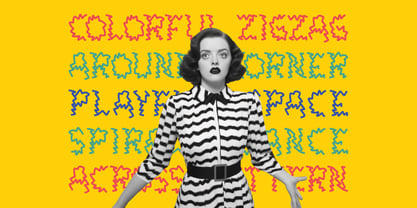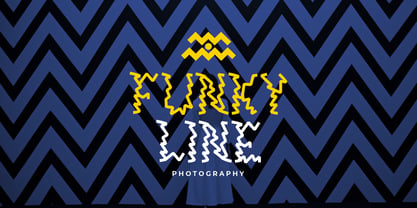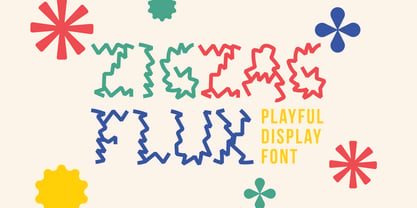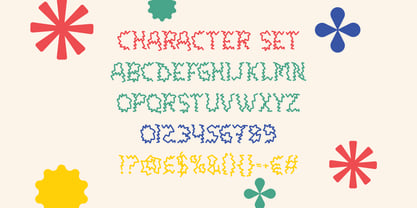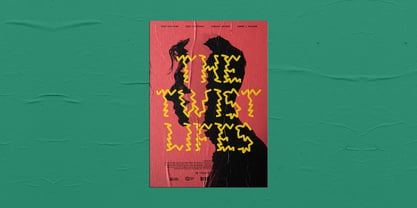
Zigzag Flux
by Shanaf
The Zigzag Flux Font Family was designed by Yesie Erma Yunita and published by Shanaf. Zigzag Flux contains 1 styles. More about this family
Zigzag Flux is a wildly expressive display font with bold, irregular letterforms that resemble sharp, continuous zigzag lines. Each character twists with unique rhythm and motion, forming a visual vibration that instantly grabs attention. Designed with a quirky and electric edge, this typeface feels alive—perfect for creative designers who want to inject fun into every layout. The font's dynamic energy makes it ideal for titles, logos, posters, kids' products, packaging, and offbeat branding. Its high legibility amid eccentricity ensures both form and function coexist seamlessly.
Every glyph is crafted with intentional imbalance, allowing the text to dance playfully across your composition. From editorial spreads to album covers and merchandise, Zigzag Flux delivers originality with a spirited punch. Combine it with flat illustrations, bold colors, or retro elements for maximum effect. Whether you're designing children's media, creative crafts, or indie art branding, this font delivers a standout personality that feels energetic, unique, and unforgettable.
Designers: Yesie Erma Yunita
Foundry: Shanaf